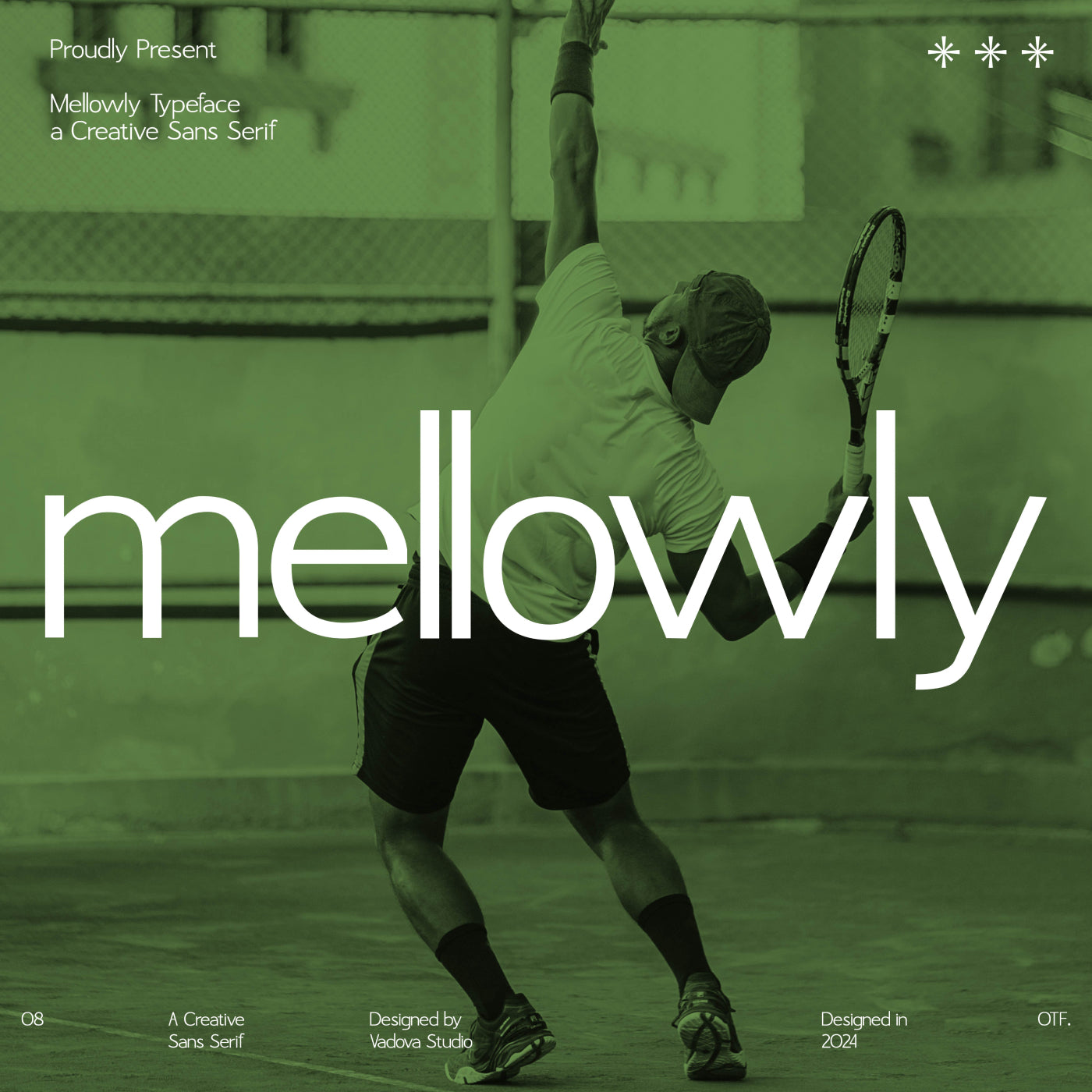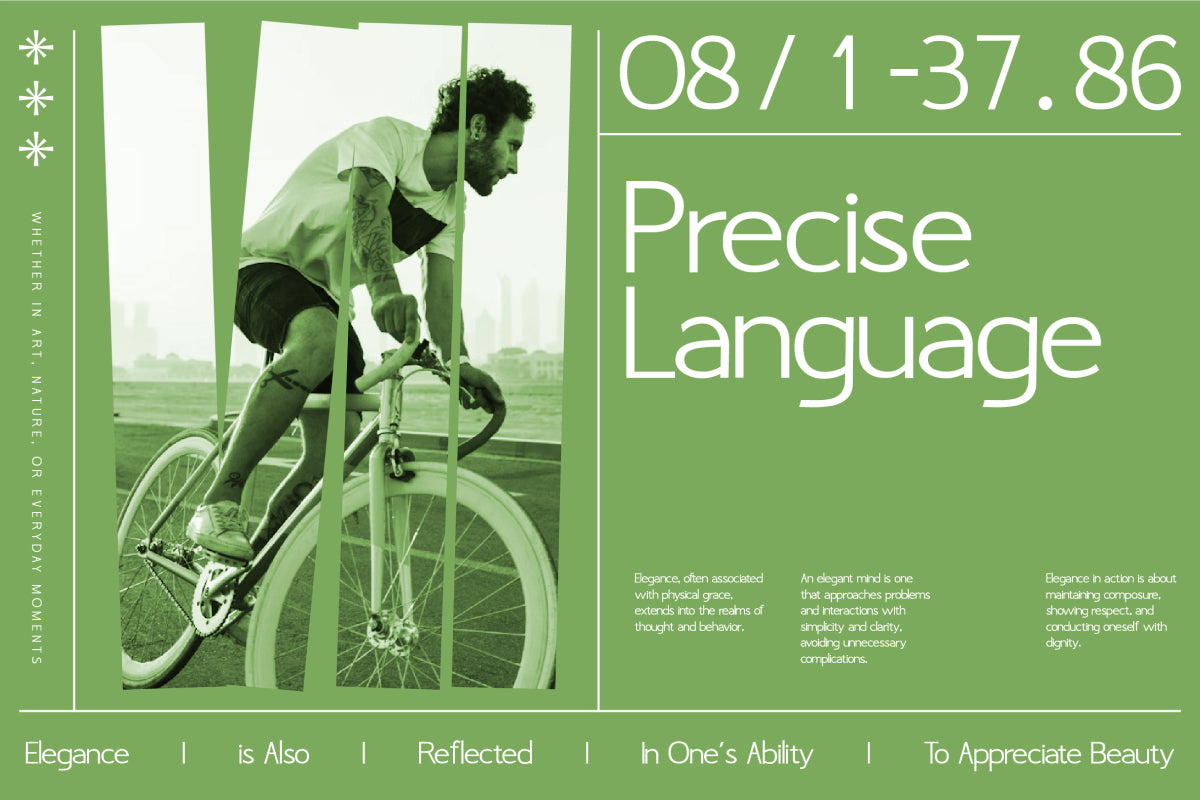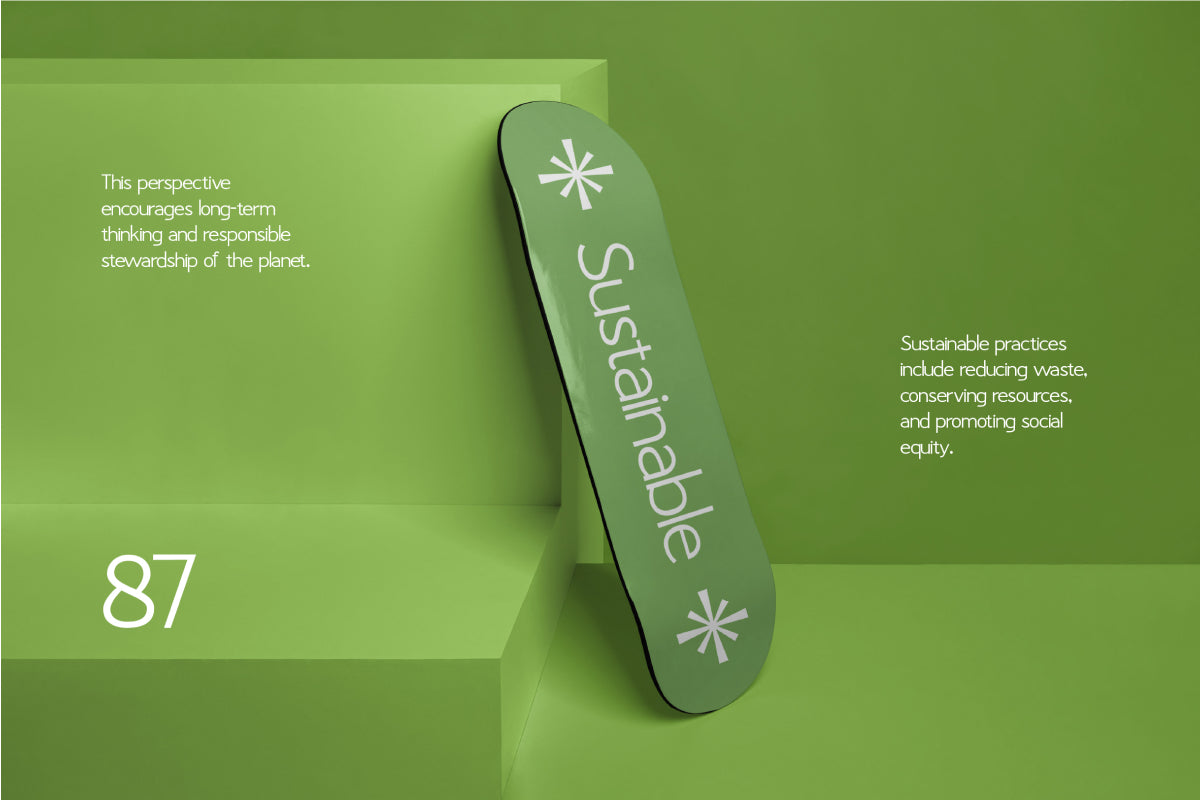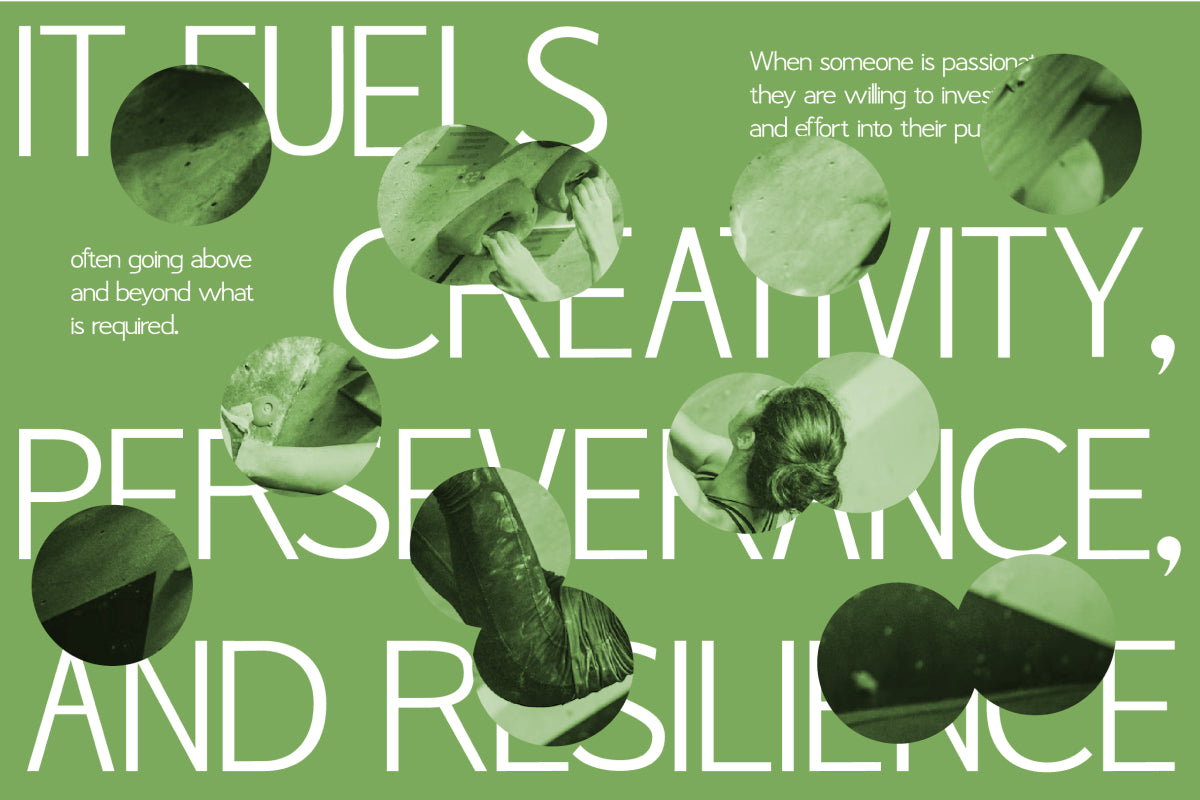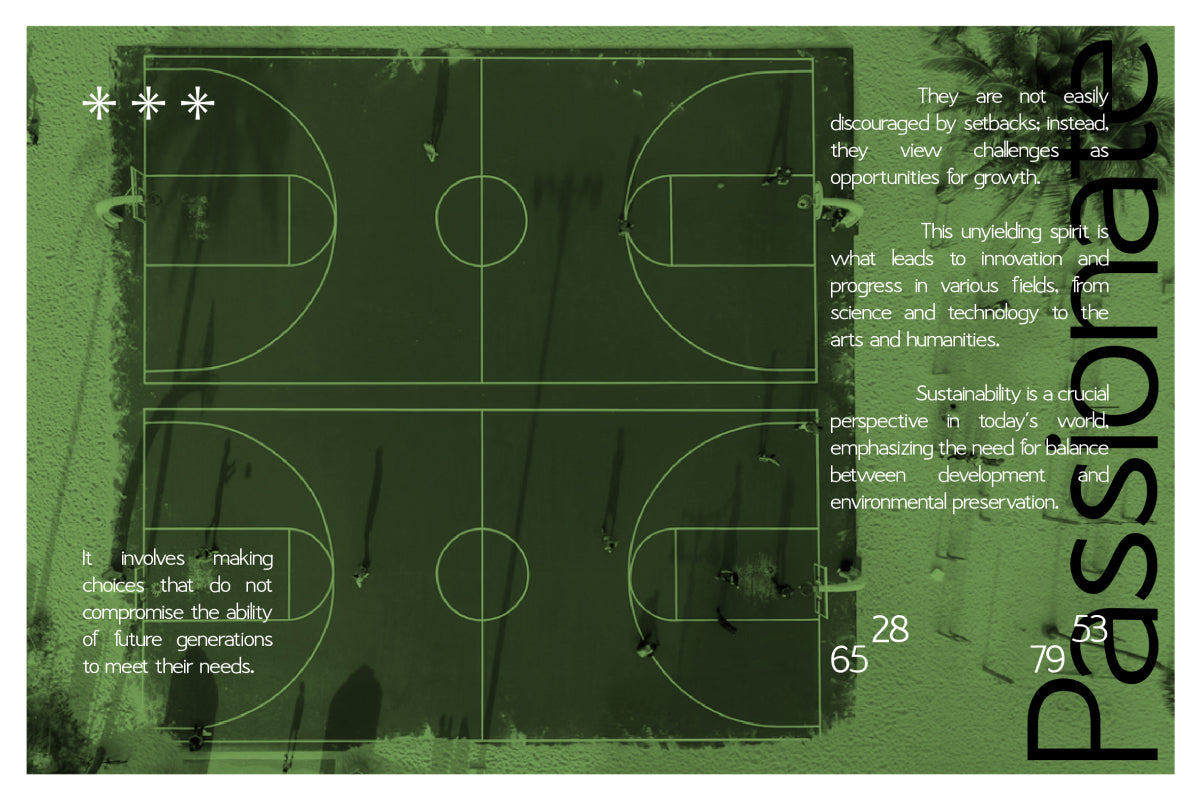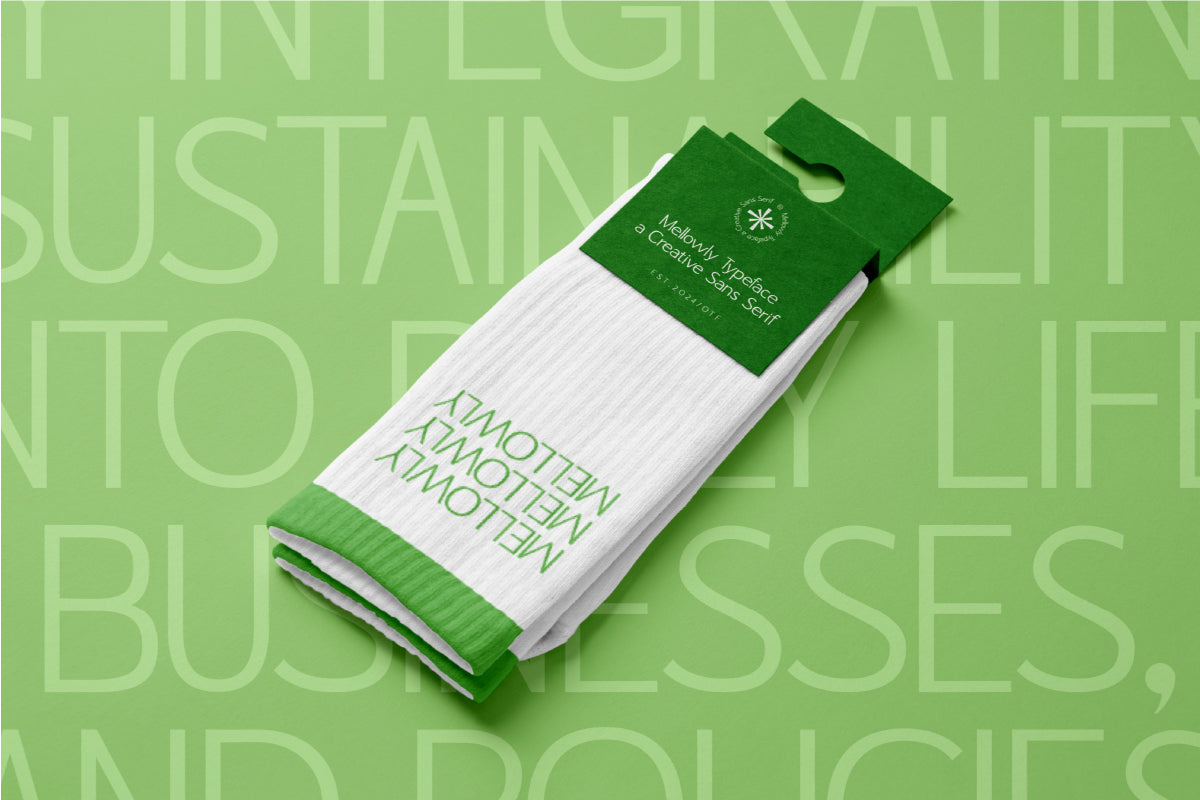
Mellowly Creative Sans Serif Font
Mellowly Elegant Sans Serif Font is a clean and modern sans serif font that blends versatility with energy. Its well-balanced letters and geometric consistency make it perfect for logos, startup branding, sports-themed design, digital media, and bold editorial layouts. Whether you need a strong font for a tech interface or a sleek typeface for lifestyle content, Mellowly delivers clarity with a hint of attitude. Designed for impactful typography, it's your go-to choice for dynamic and progressive design projects.
The Mellowly Creative Sans Serif Font is a modern and versatile typeface featuring well-balanced letters and geometric consistency. Available in OTF format, it includes uppercase and lowercase characters, numerals, and punctuation, making it suitable for a variety of design projects.